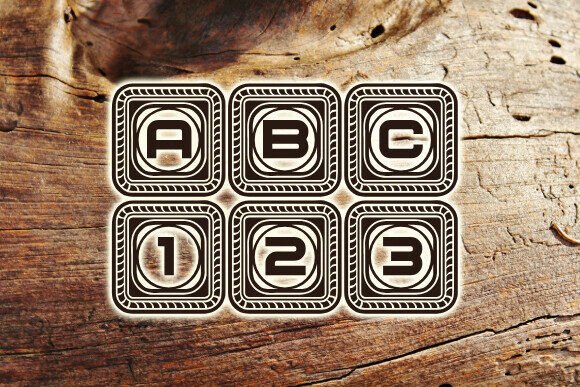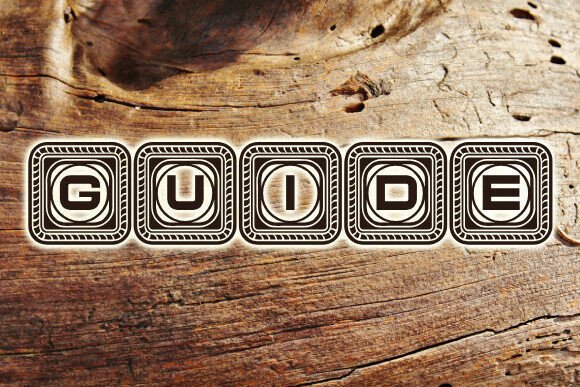
Introducing Before Font: The Ultimate Retro-Modern Display Typeface
In the world of typography, fonts play a crucial role in conveying messages, evoking emotions, and creating lasting impressions. For designers and crafters seeking to add a touch of nostalgia and sophistication to their work, Before Font is an exceptional choice. This striking and highly detailed display typeface boasts a retro-modern vibe, making it perfect for a wide range of creative projects.
The Retro-Modern Charm of Before Font
Before Font is a masterful blend of classic and contemporary design elements. Its bold, decorative block letters are enclosed in intricate frames, giving it a unique and artistic flair. The font’s retro-modern aesthetic is reminiscent of vintage posters, logos, and advertisements from the mid-20th century, yet its clean lines and precise curves ensure it remains highly legible and versatile.
Perfect for Attention-Grabbing Designs
Whether you’re working on a logo, headline, poster, or any other design project, Before Font is sure to make a bold statement and capture attention. Its decorative frames and bold lettering create a visually striking effect that’s perfect for:
• Logos: Add a touch of sophistication and elegance to your brand’s identity.
• Headlines: Create attention-grabbing titles for articles, blog posts, and advertisements.
• Posters: Design eye-catching posters for events, promotions, or product launches.
• Vintage-inspired designs: Add a nostalgic touch to your designs, evoking the charm of a bygone era.
Key Features of Before Font
So, what makes Before Font so special? Here are some of its key features:
• Retro-modern design: A unique blend of classic and contemporary elements.
• Bold and decorative: Intricately framed block letters make a bold statement.
• Highly legible: Clean lines and precise curves ensure easy reading.
• Versatile: Suitable for a wide range of design projects, from logos to posters.
• Unique and artistic: Adds a touch of personality and flair to your designs.
Tips for Using Before Font Effectively
To get the most out of Before Font, here are some tips for using it effectively:
• Use it sparingly: Before Font is a bold and attention-grabbing font, so use it sparingly to avoid overwhelming your design.
• Pair it with complementary fonts: Combine Before Font with simpler fonts to create visual interest and hierarchy.
• Experiment with colors and textures: Add depth and dimension to your design by experimenting with different colors and textures.
• Pay attention to spacing: Ensure your design looks balanced and harmonious by paying attention to spacing and letter placement.
Before Font is a striking and highly detailed display typeface that’s perfect for designers and crafters seeking to add a touch of retro-modern charm to their work. With its bold, decorative block letters and intricate frames, it’s sure to make a bold statement and capture attention. Whether you’re working on a logo, headline, poster, or vintage-inspired design, Before Font is an exceptional choice. So why wait? Download Before Font today and take your designs to the next level!